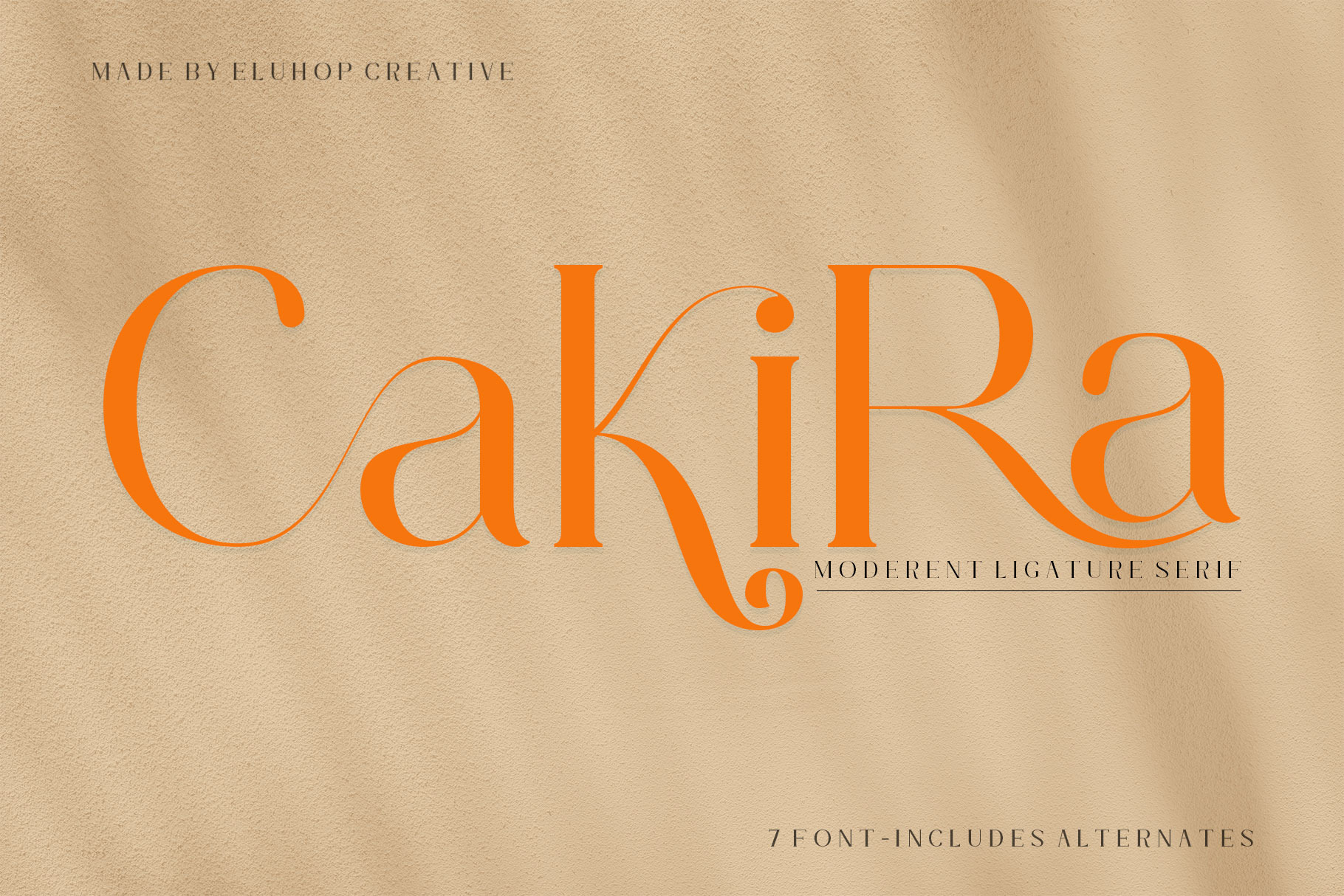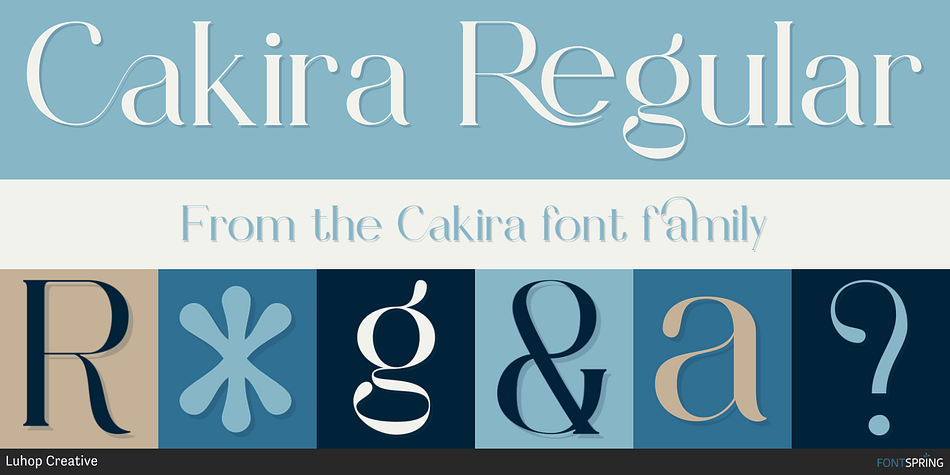
Cakira Regular
Cakira is a multiple classification font family. This typeface has seven styles and was published by Luhop Creative.
Cakira is a classy and distinct serif font. Add it confidently to your favorite creations and let yourself be amazed by the outcome generated. This font is PUA encoded which means you can access all glyphs and swashes with ease!
Cakira is also included full set of:
• uppercase and lowercase letters
• multilingual symbols
• numerals
• punctuation
• standard ligatures
• alternates